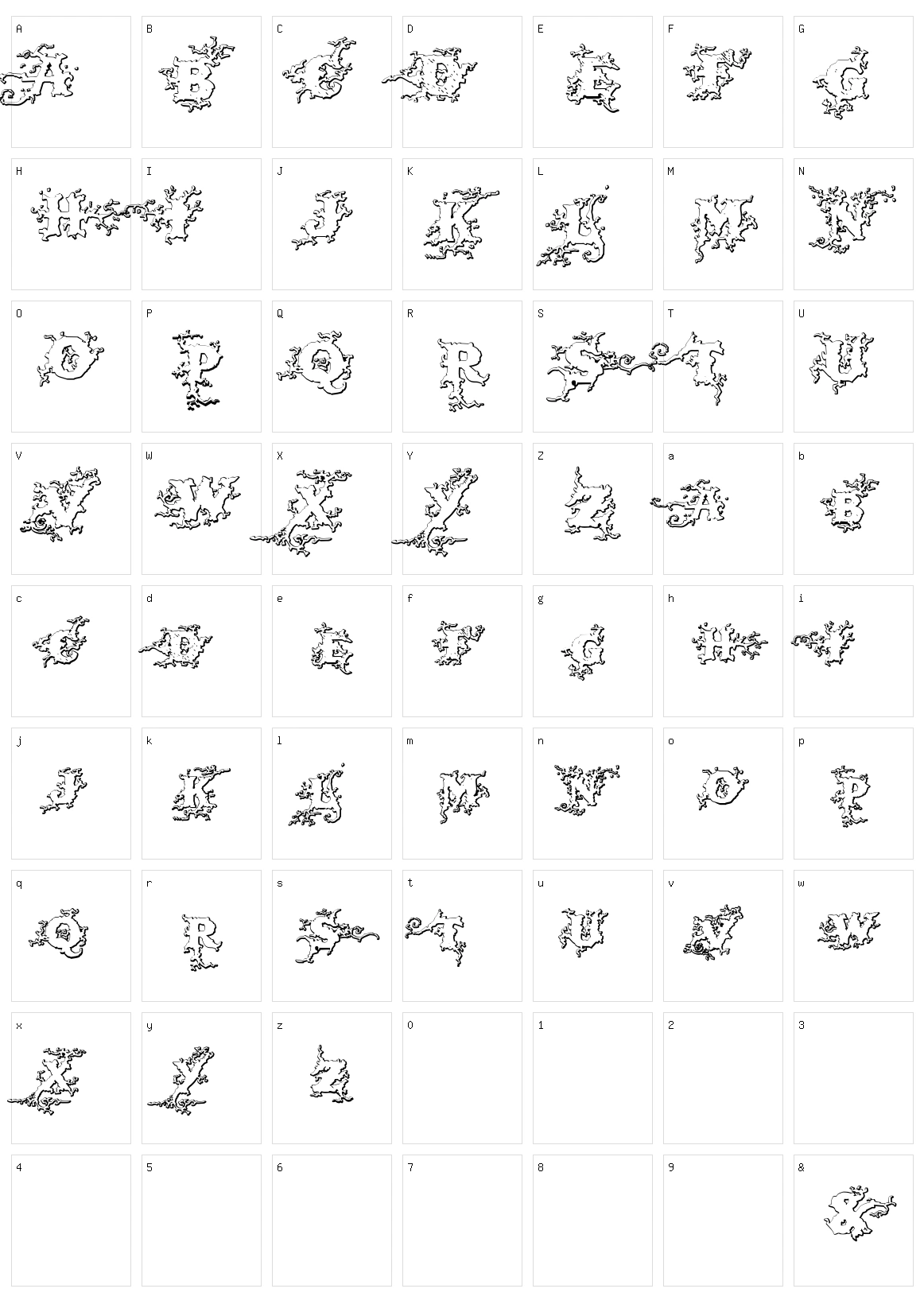
The free font Dark Wood Beveled is carefully designed by Intellecta Design, showcasing a thoughtful balance of creativity and usability and falls under the Halloween font style. When you download the ZIP file, it contains only 513.6 KB of font files, making it lightweight and quick to download. Please review the license details below to understand permitted usage and distribution rights. If license information is not available, we recommend using this font for personal projects only or contacting the author directly for commercial usage permissions.